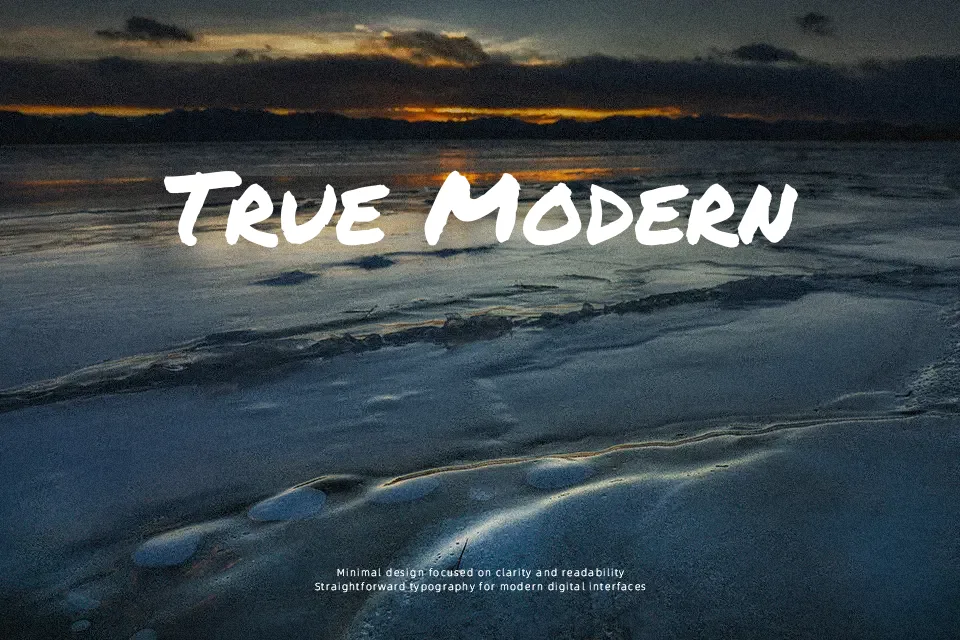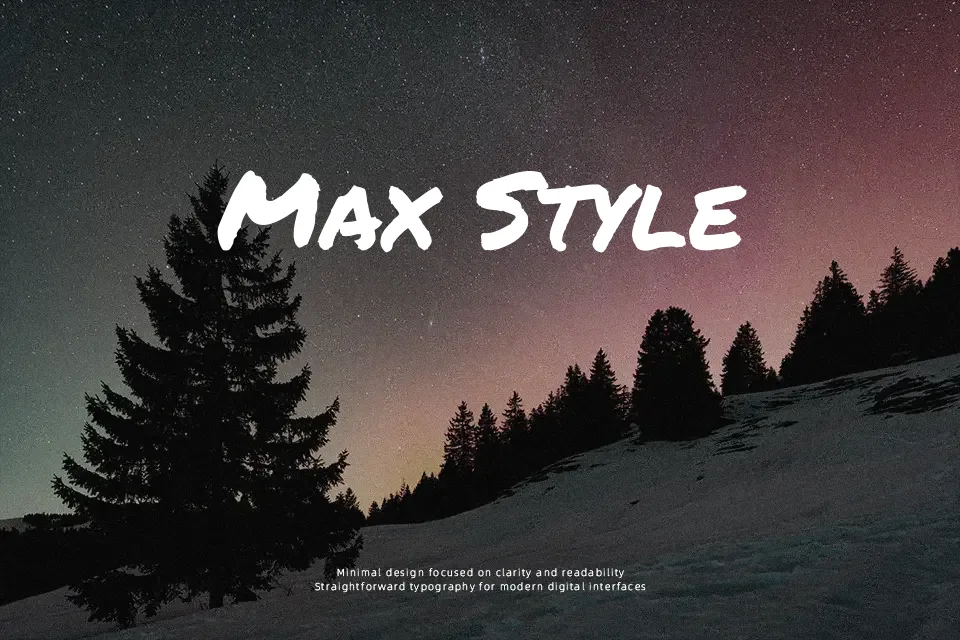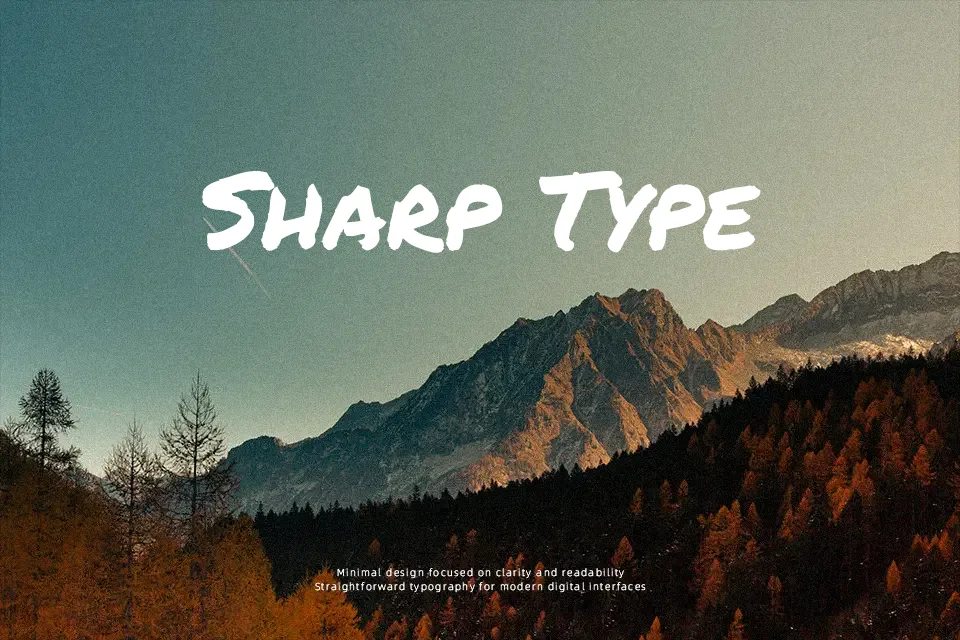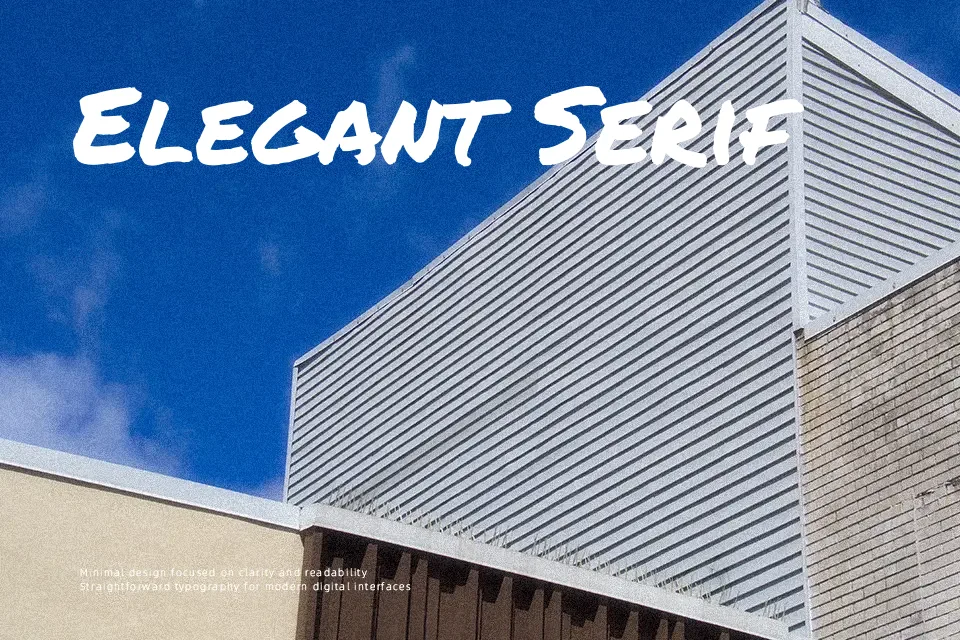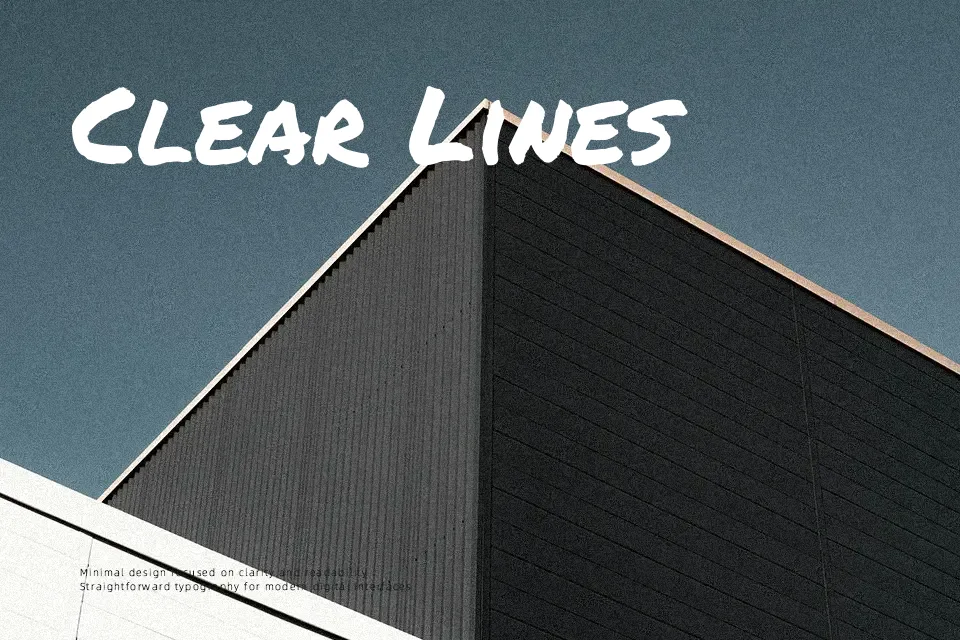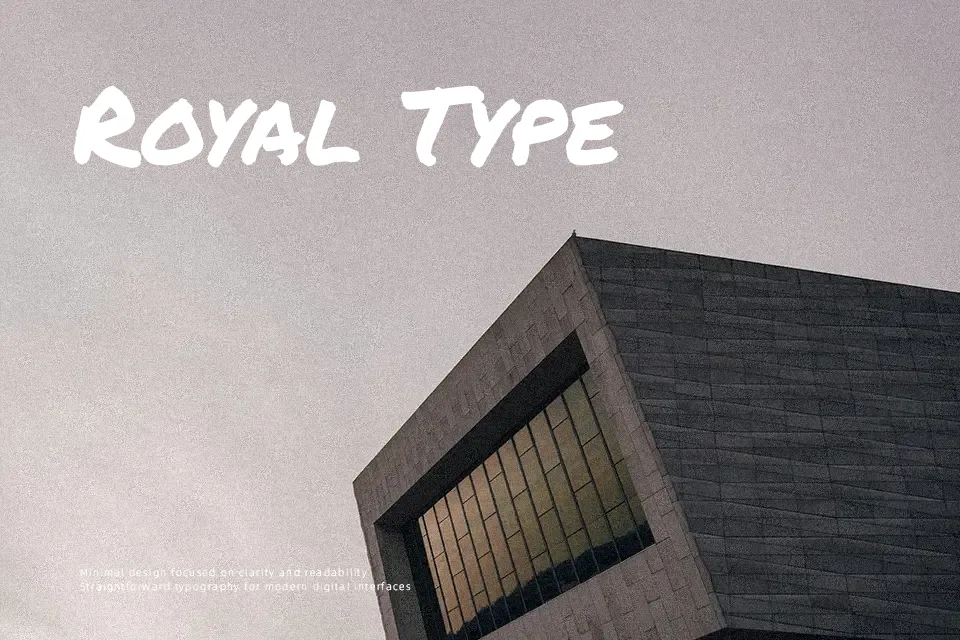
Permanent Marker Font
Designed by Font Diner
Permanent Marker mimics the look of a chunky felt-tip marker, with heavy strokes, slightly uneven curves, and compact letterforms that read as confident and a bit rough around the edges. It sits firmly in the casual handwritten space, closer to a marker sketch than a polished script, so it gives titles and labels a human, improvised tone rather than a corporate one. This works nicely for posters, quick campaign slogans, food truck menus, or social posts where you want the text to feel shouted or scrawled by hand. It can feel clumsy in long paragraphs or small UI labels, where the dense forms and irregular rhythm become tiring, so it’s better treated as a display accent alongside a calmer sans or serif.
Bold headlines on posters or flyers
Hand-drawn style branding and logos
Social media graphics with casual emphasis
Menu boards and signage with a marker aesthetic
Body text or long paragraphs
Formal editorial layouts or reports
Dense UI elements or navigation labels
Projects that need a refined, minimal tone
Perfect for branding, headline, and poster, with a artistic and brush style.